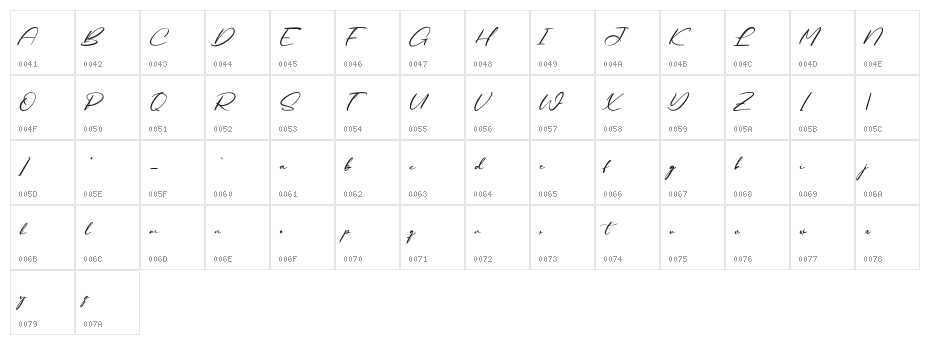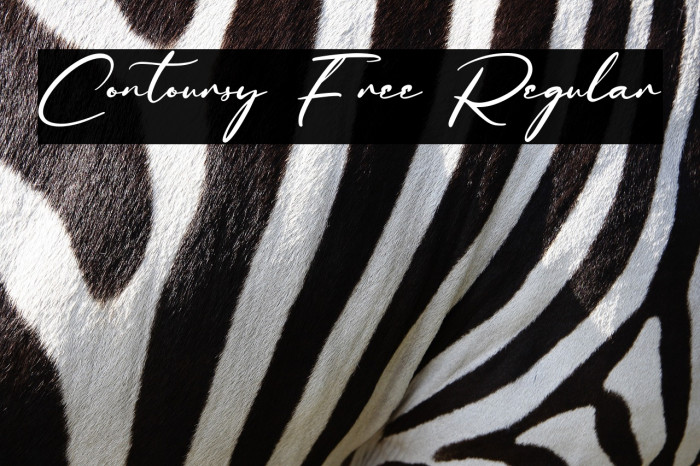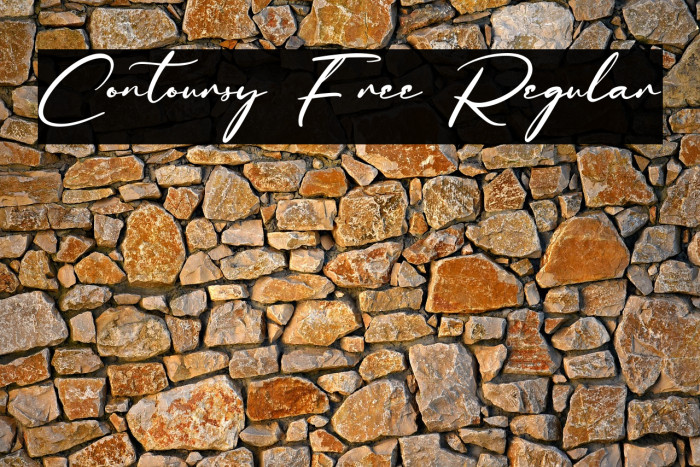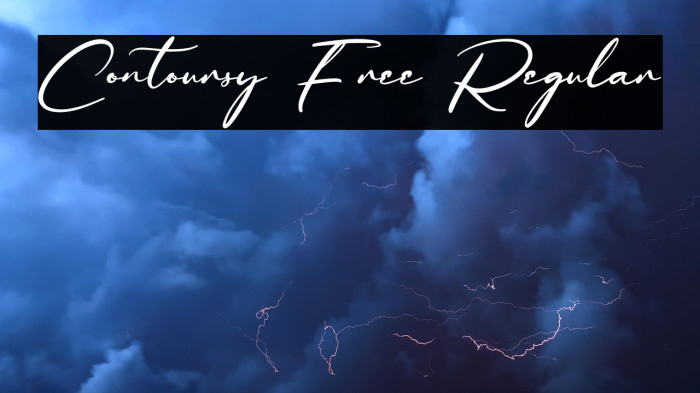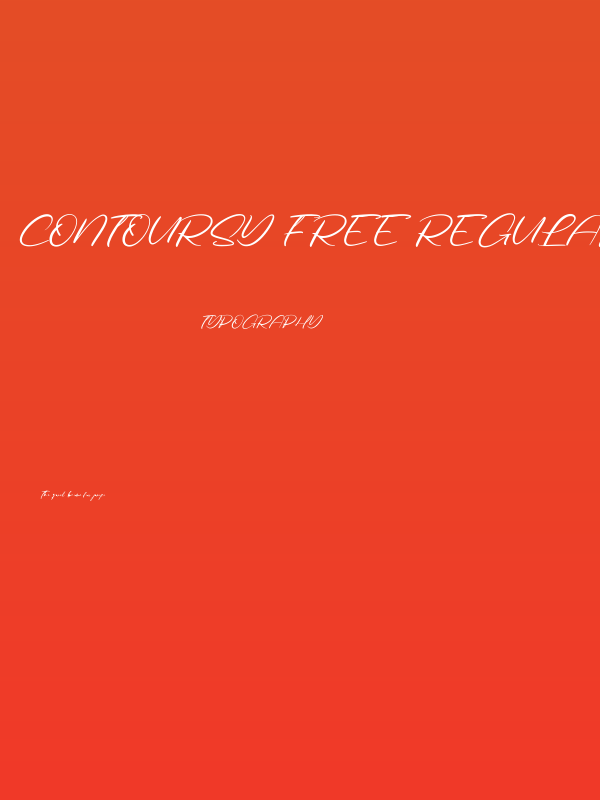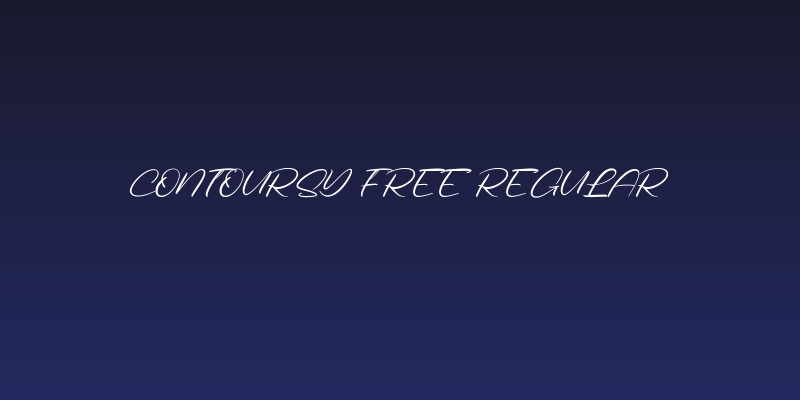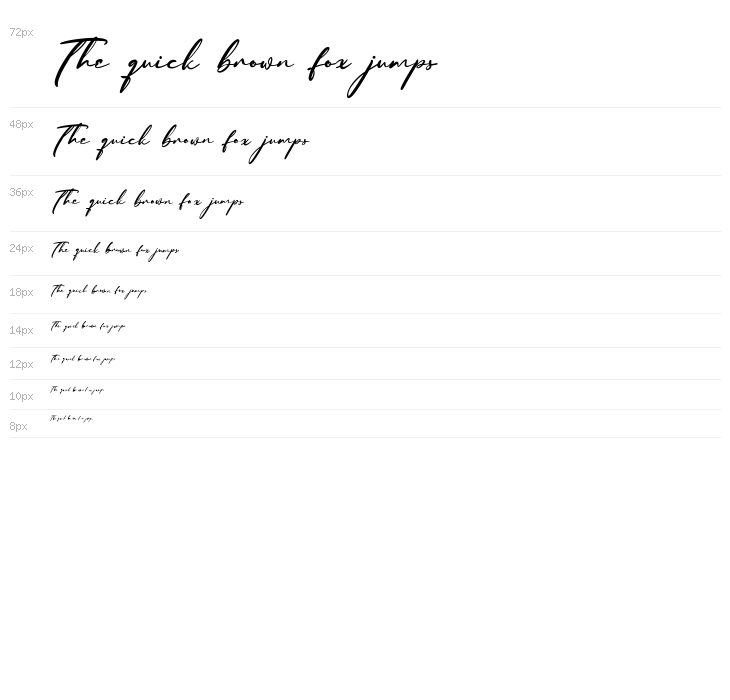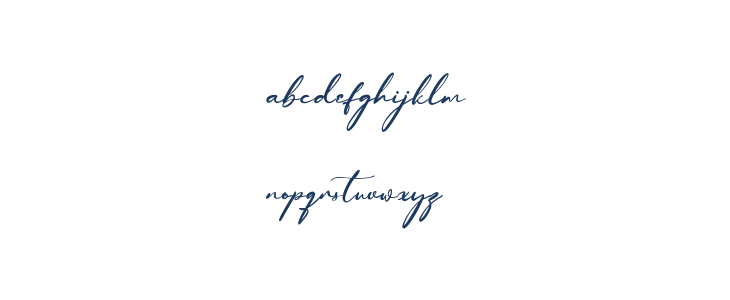
Contoursy Free Regular Font
Contoursy Free Regular Description
This font exudes a modern and elegant script style, characterized by its flowing, cursive letterforms that mimic natural handwriting. The uppercase letters are bold and sweeping, with a slight slant that adds a dynamic feel. The lowercase letters are more delicate, featuring intricate loops and connections that enhance the handwritten aesthetic. The overall design is sophisticated and stylish, making it suitable for projects that require a personal touch. The font's smooth curves and balanced proportions ensure readability while maintaining its artistic flair.
| Use Case | Logos, Invitations, Branding |
| Proposed Projects | Ideal for wedding invitations, greeting cards, branding projects, and elegant logos. |